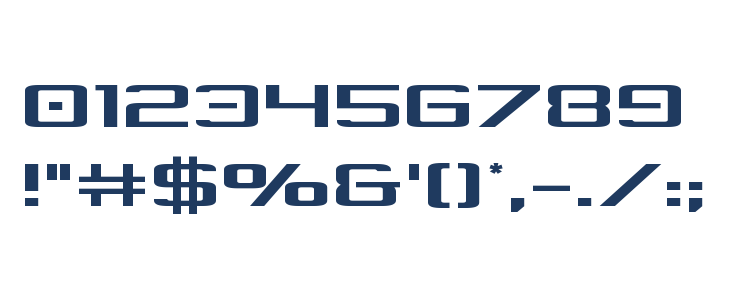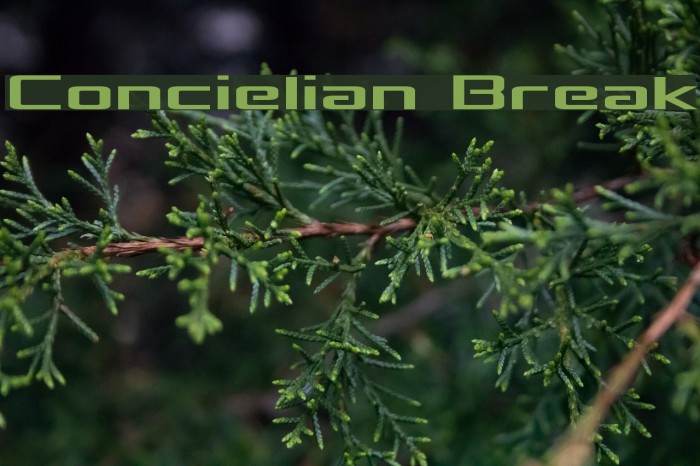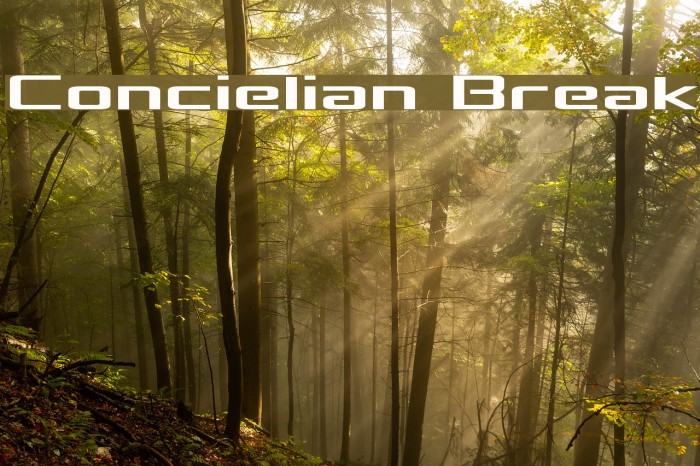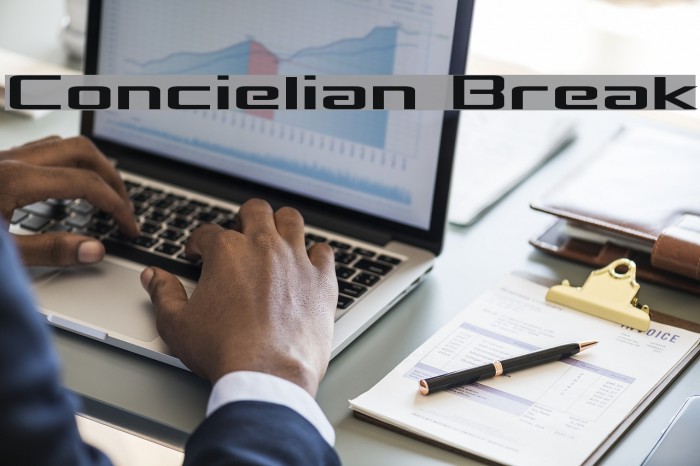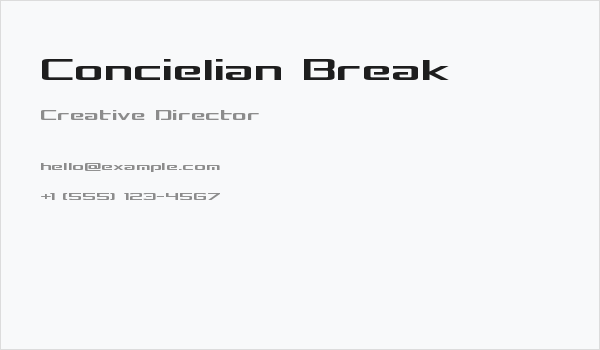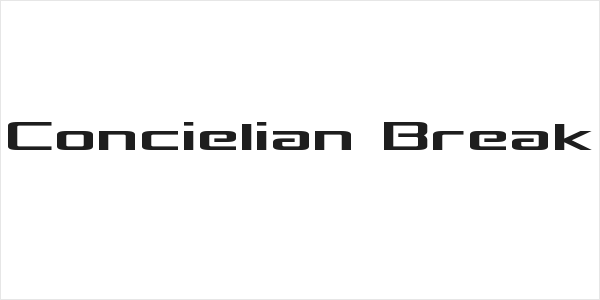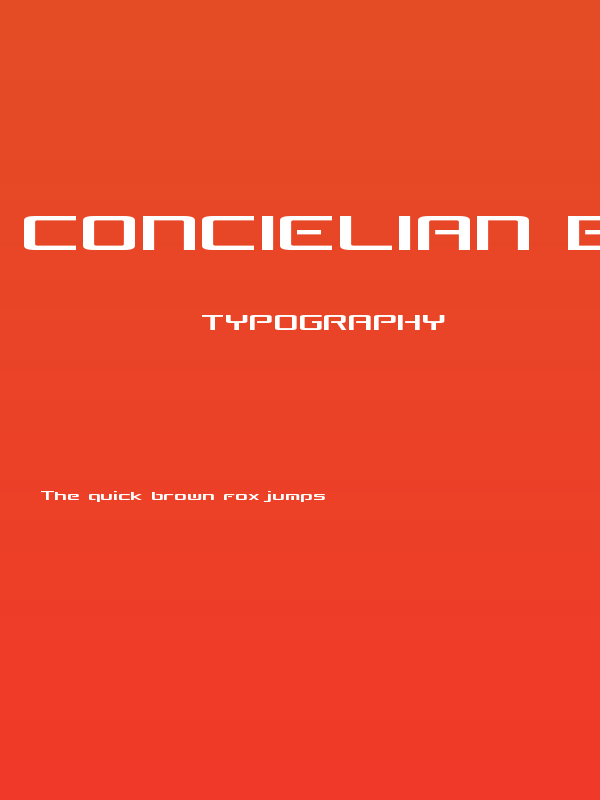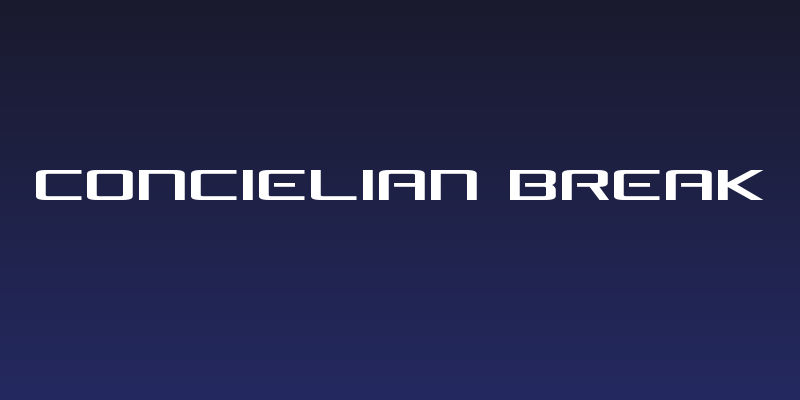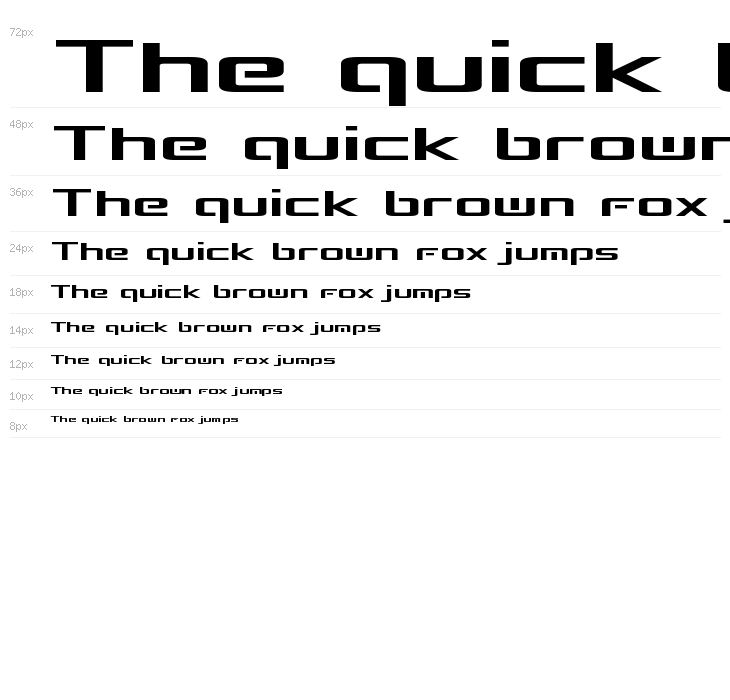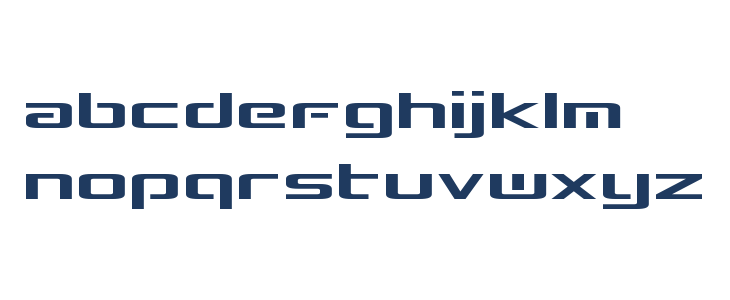
Concielian Break Font
Concielian Break Description
This font features a modern, geometric style with a futuristic touch. The characters are constructed with clean, straight lines and sharp angles, giving it a sleek and contemporary appearance. The uppercase letters have a uniform height, while the lowercase letters maintain a consistent baseline, enhancing readability. The numerals are distinct and align well with the overall design, making them suitable for digital displays. Special characters are crafted with the same precision, ensuring a cohesive look across all glyphs. The font's design is both functional and aesthetically pleasing, making it versatile for various applications.
| Use Case | Headlines, Logos, Digital displays |
| Proposed Projects | Ideal for technology branding, digital interfaces, and modern advertising campaigns. |